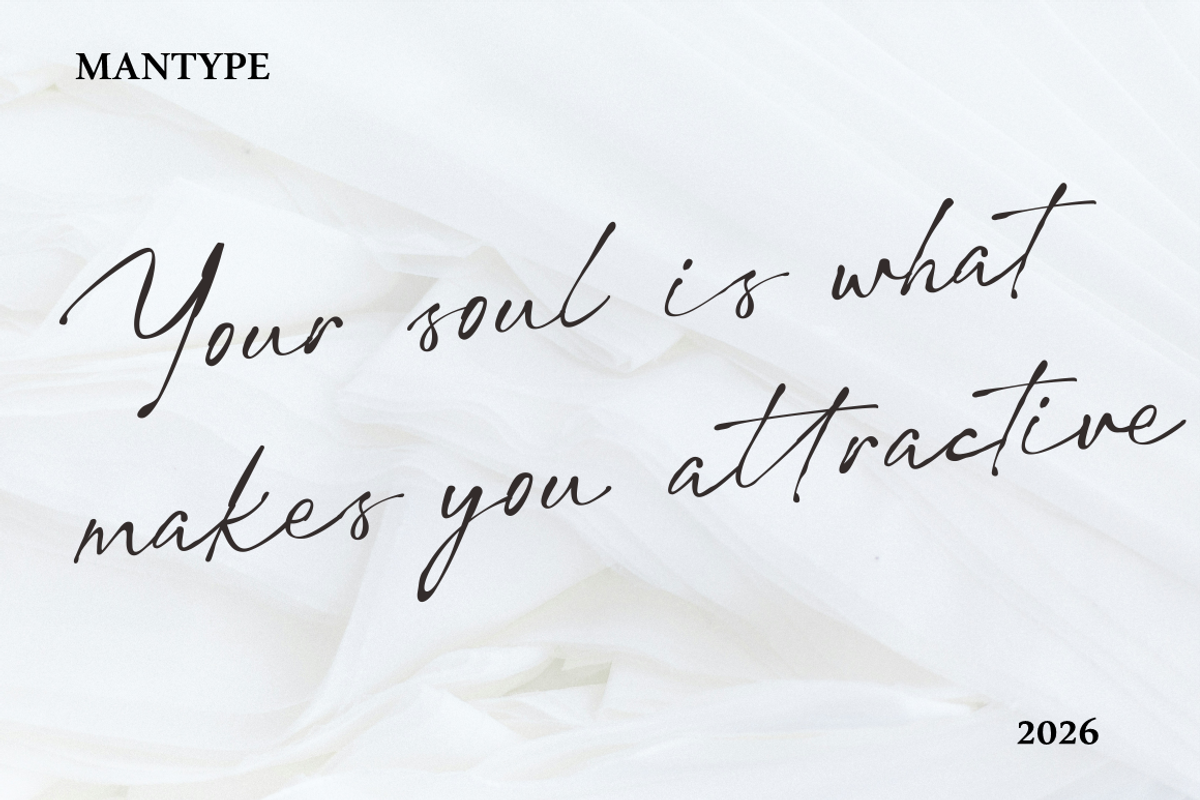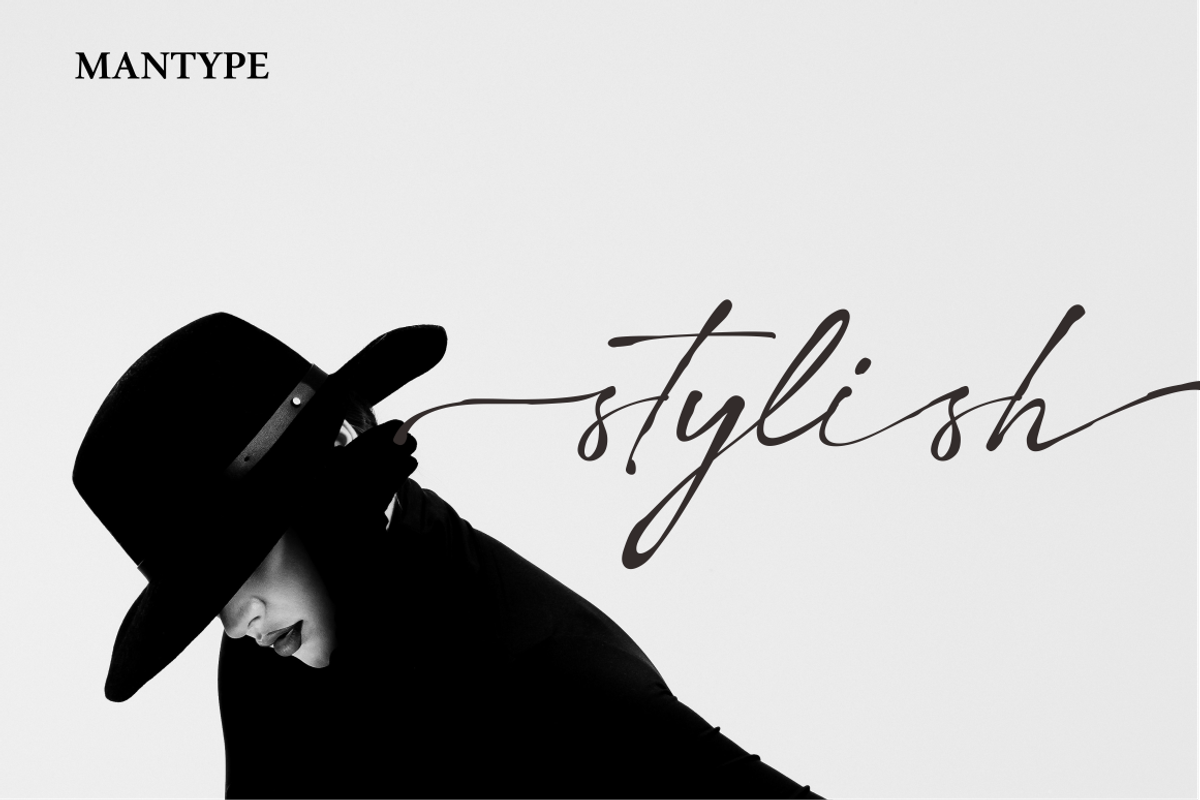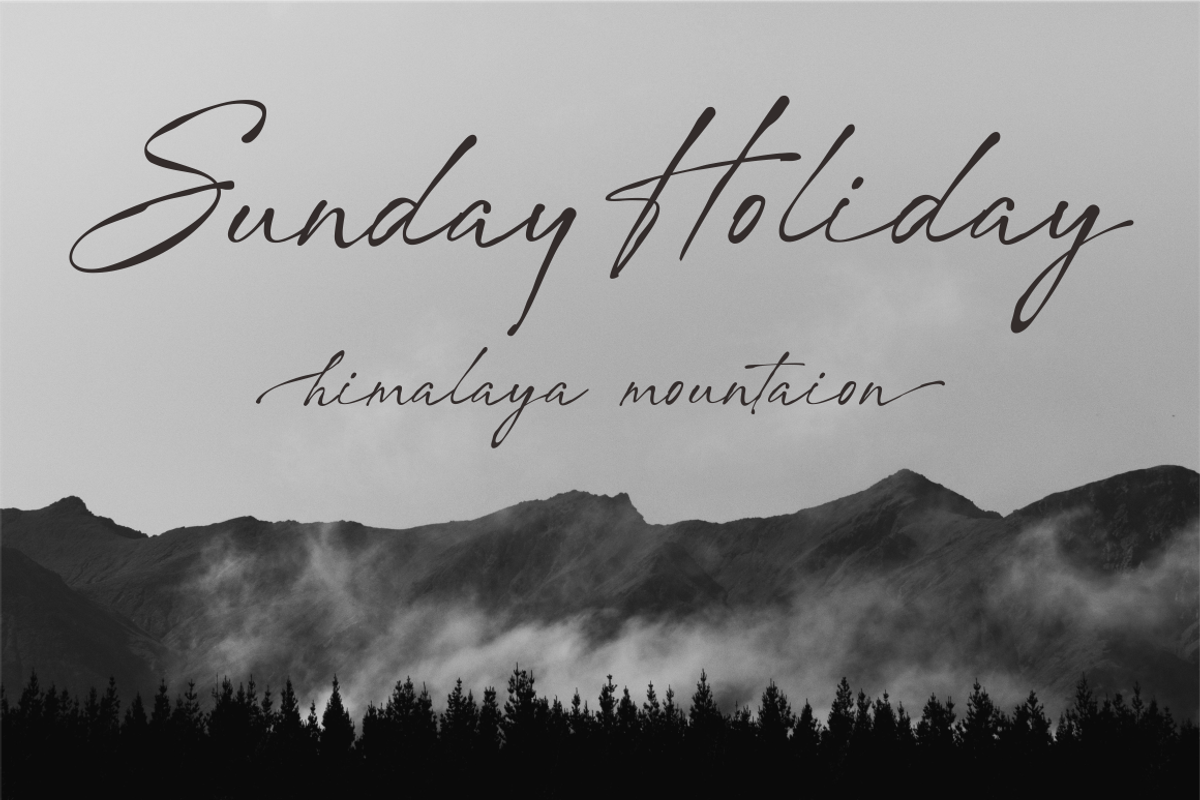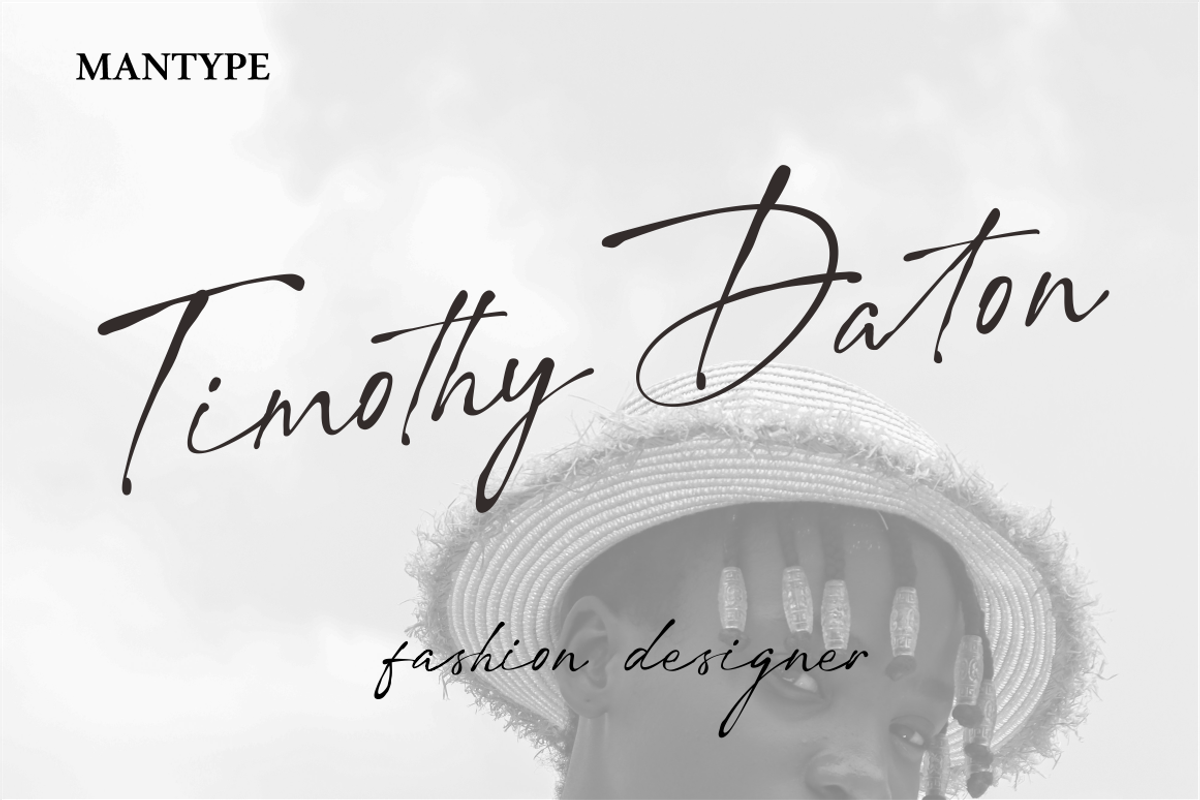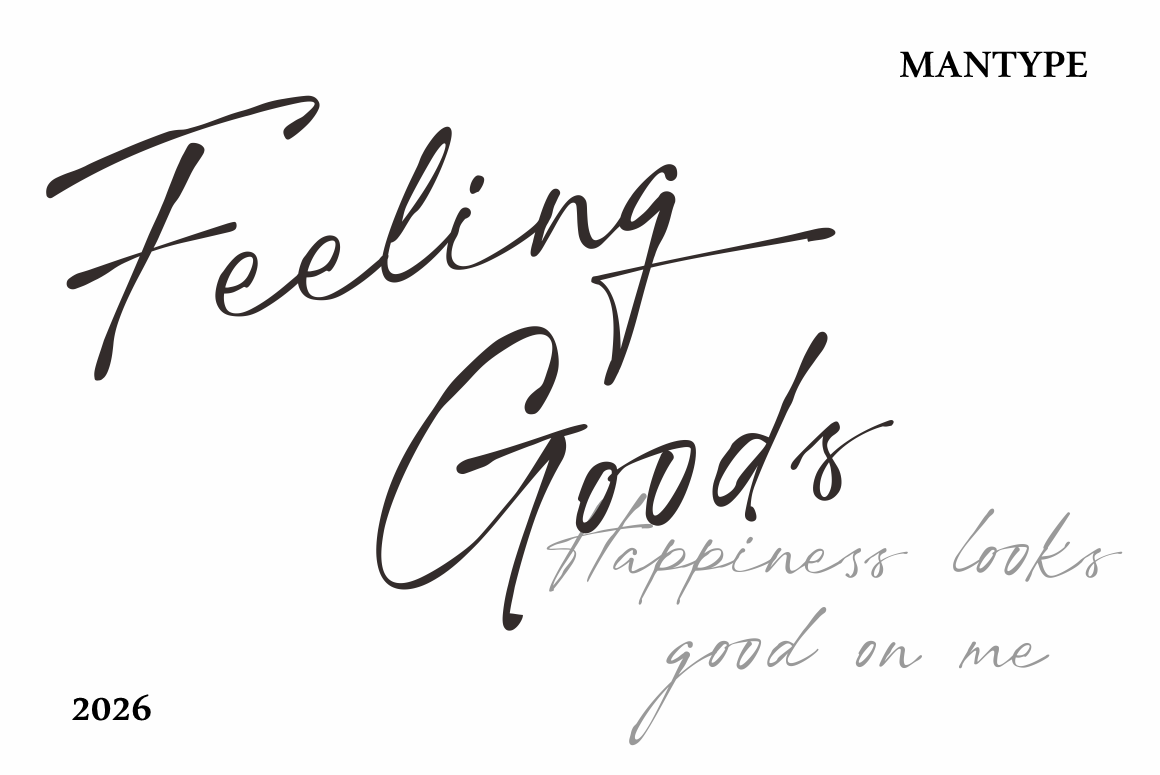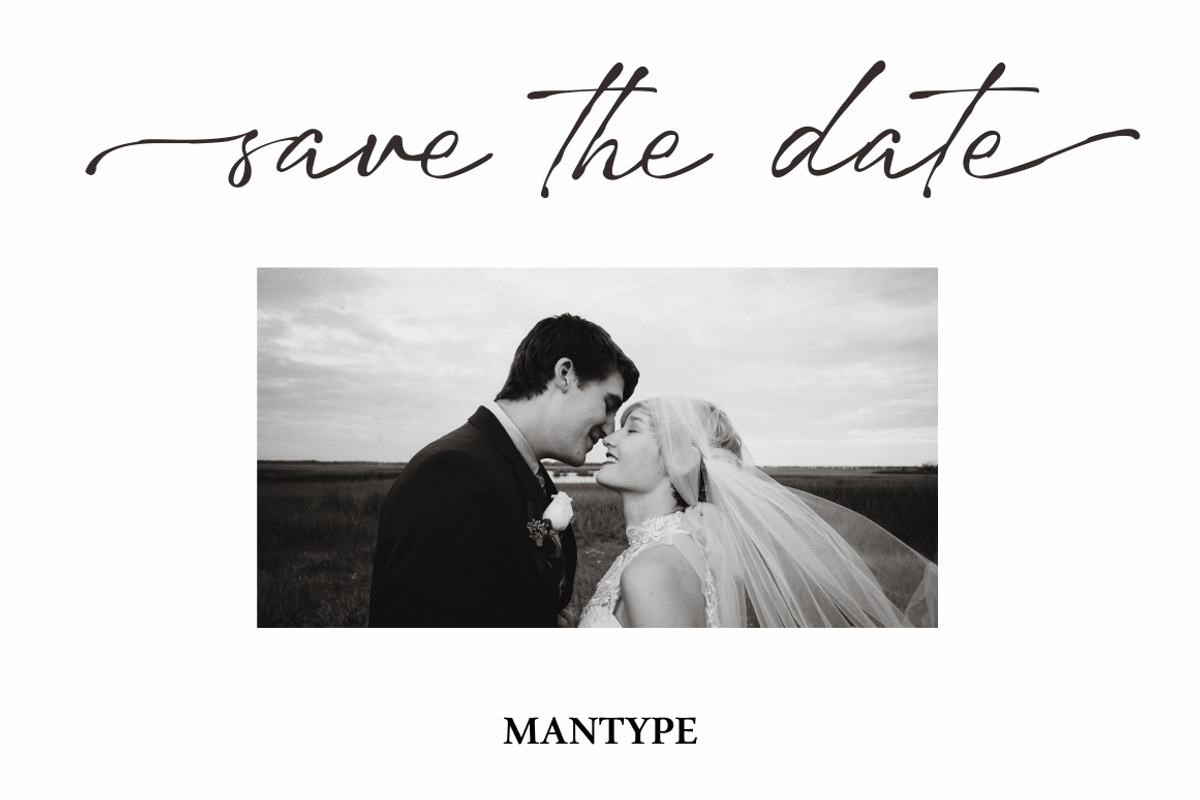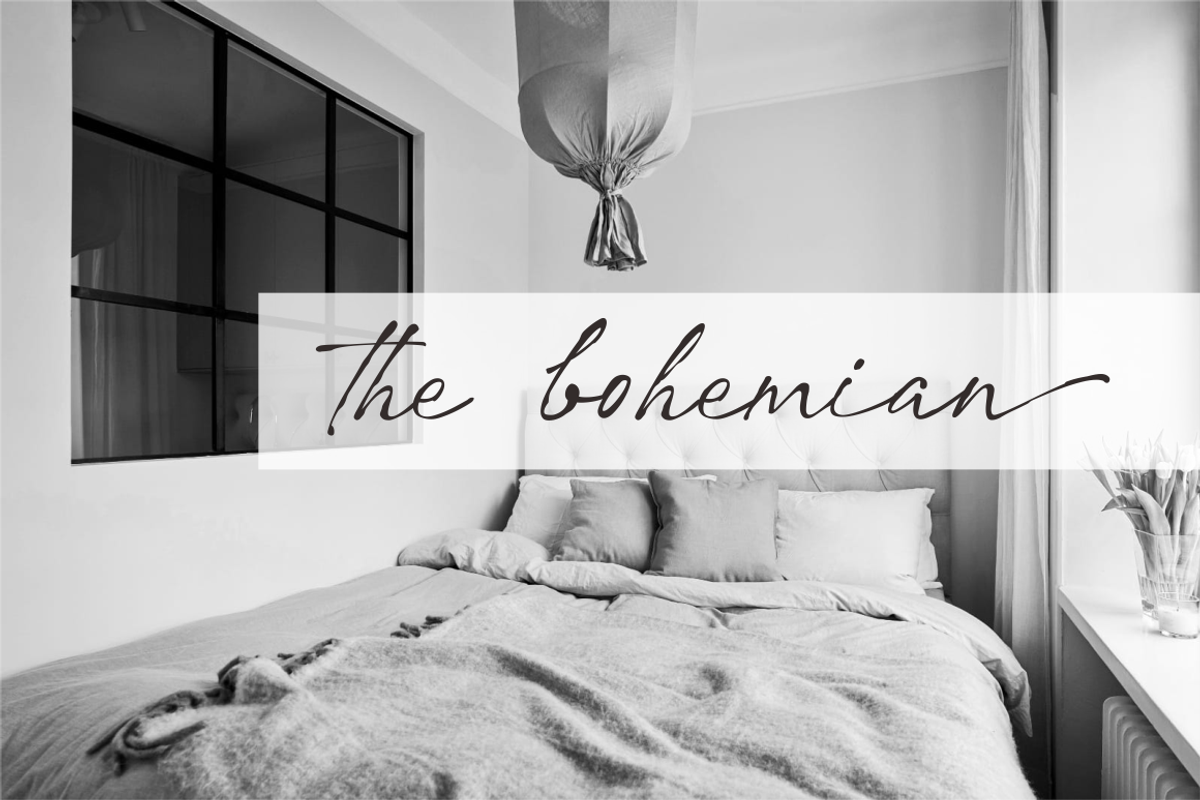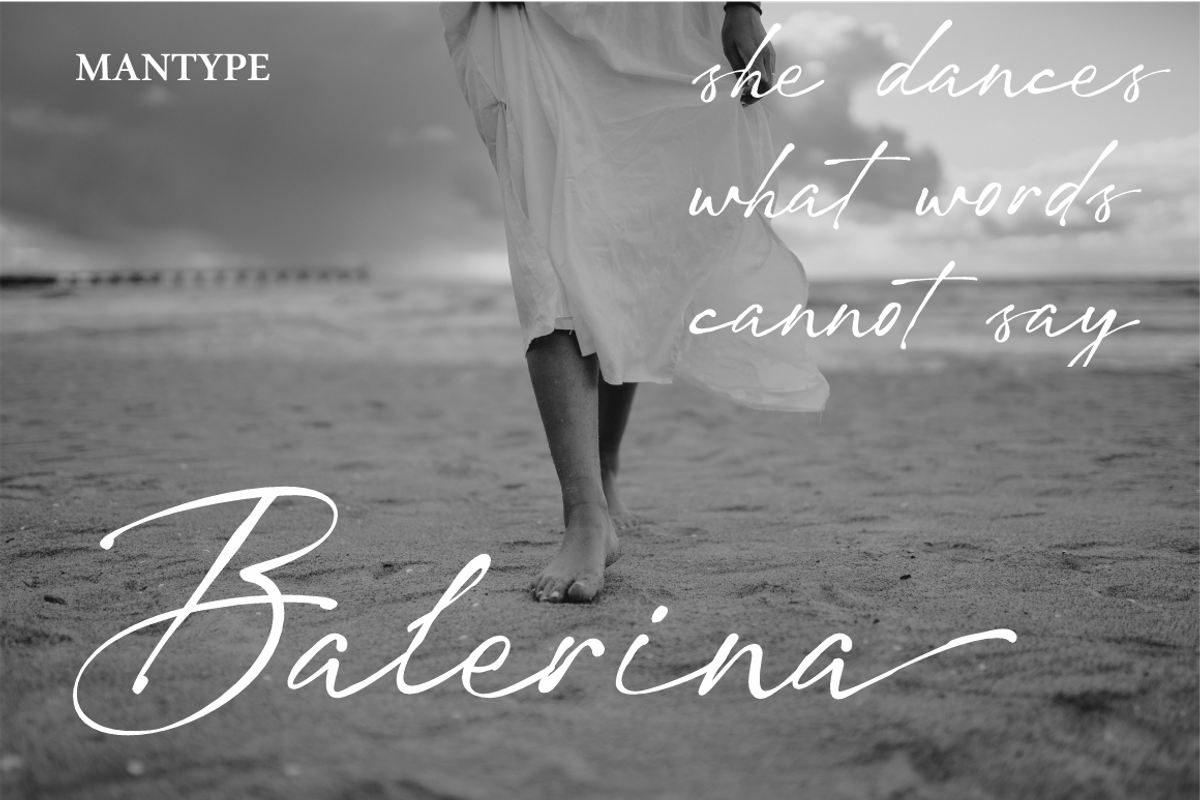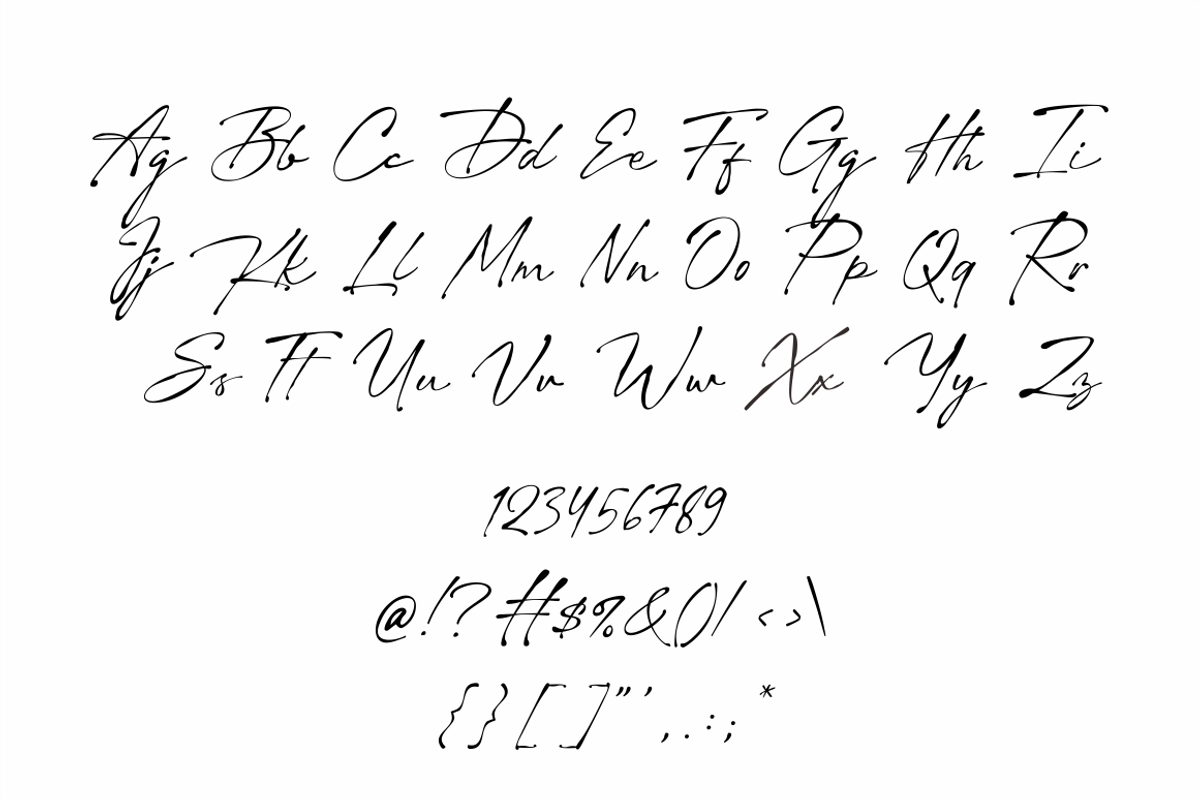
Messy Muse | Signature Font
Messy Muse — a playful signature font with a beautifully imperfect touch.
Loose, expressive, and effortlessly charming, it brings the feeling of handwritten notes, spontaneous thoughts, and little creative moments to life.
Made for those who believe perfection isn’t always beautiful sometimes, the mess is the magic.